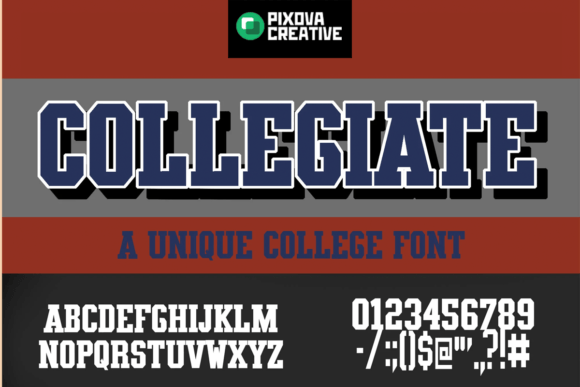
Collegiate Font
About the Collegiate Font
Presenting Collegiate Font, a unique and stylish typeface that will make your work stand out. Introducing the Collegiate font – a unique hand-crafted typeface designed to embody the classic and prestigious spirit of college and university branding. This font merges traditional academic aesthetics with contemporary design elements, making it perfect for a wide array of creative projects that require a scholarly yet stylish touch. Perfect for creating logos, letterheads, and branding materials for universities, colleges, and schools. The font conveys a sense of tradition, prestige, and excellence.
Collegiate Font Usage Examples
Collegiate Font Example